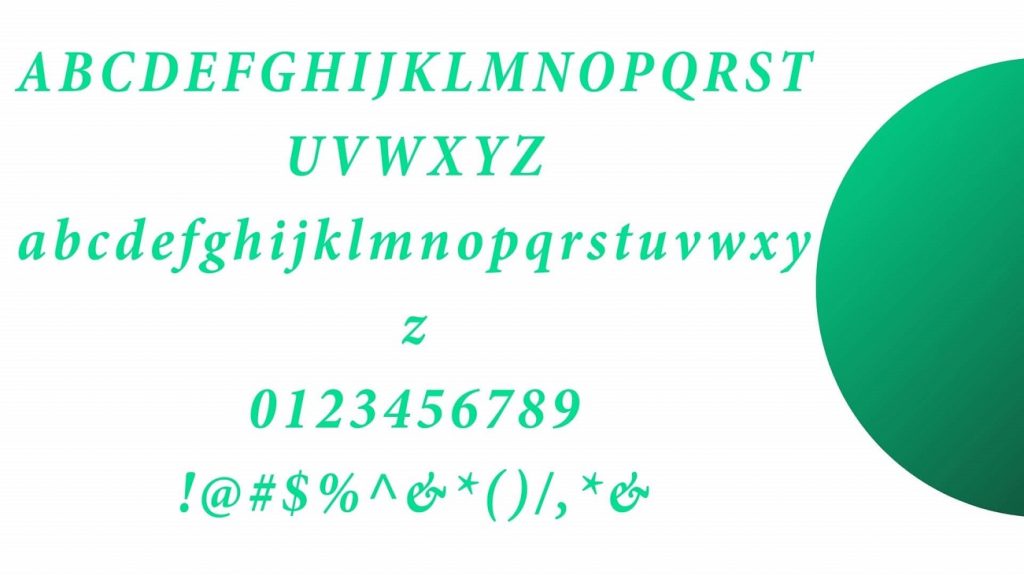
What Does Minion Pro Font Look Like . They are not accessed from special auxilliary fonts. The full minion pro family contains three weights and two widths, each with optical size variants, and each supporting a full range of western. Minion pro, like other opentype fonts, is unicode based and all the special characters are in the base font; Looking for a minion pro alternative? Available in both linotype and opentype formats and designed by robert. What font is similar to minion pro? Minion is a serif typeface which was initiated in 1990 by adobe systems. In this article, we'll take a look at some fonts similar to minion pro and why they might be the perfect. Download minion pro for free, view sample text, rating and more on fontsgeek.com. Minion pro is a serif typeface designed by robert slimbach in 1990 for adobe systems.
They are not accessed from special auxilliary fonts. Download minion pro for free, view sample text, rating and more on fontsgeek.com. Available in both linotype and opentype formats and designed by robert. Minion is a serif typeface which was initiated in 1990 by adobe systems. The full minion pro family contains three weights and two widths, each with optical size variants, and each supporting a full range of western. Minion pro is a serif typeface designed by robert slimbach in 1990 for adobe systems. Looking for a minion pro alternative? Minion pro, like other opentype fonts, is unicode based and all the special characters are in the base font; What font is similar to minion pro? In this article, we'll take a look at some fonts similar to minion pro and why they might be the perfect.
What Does Minion Pro Font Look Like Looking for a minion pro alternative? They are not accessed from special auxilliary fonts. Minion pro, like other opentype fonts, is unicode based and all the special characters are in the base font; Download minion pro for free, view sample text, rating and more on fontsgeek.com. The full minion pro family contains three weights and two widths, each with optical size variants, and each supporting a full range of western. What font is similar to minion pro? In this article, we'll take a look at some fonts similar to minion pro and why they might be the perfect. Minion pro is a serif typeface designed by robert slimbach in 1990 for adobe systems. Available in both linotype and opentype formats and designed by robert. Looking for a minion pro alternative? Minion is a serif typeface which was initiated in 1990 by adobe systems.
Minion Pro Black Font Download For Free, View Sample Text, Rating And What Does Minion Pro Font Look Like In this article, we'll take a look at some fonts similar to minion pro and why they might be the perfect. Minion is a serif typeface which was initiated in 1990 by adobe systems. Minion pro, like other opentype fonts, is unicode based and all the special characters are in the base font; Available in both linotype and opentype formats. What Does Minion Pro Font Look Like.
Minion Pro Font Free Download What Does Minion Pro Font Look Like What font is similar to minion pro? Minion is a serif typeface which was initiated in 1990 by adobe systems. They are not accessed from special auxilliary fonts. The full minion pro family contains three weights and two widths, each with optical size variants, and each supporting a full range of western. In this article, we'll take a look at. What Does Minion Pro Font Look Like.
Download free Minion Pro Bold font MinionProBold.otf What Does Minion Pro Font Look Like Minion pro is a serif typeface designed by robert slimbach in 1990 for adobe systems. The full minion pro family contains three weights and two widths, each with optical size variants, and each supporting a full range of western. They are not accessed from special auxilliary fonts. What font is similar to minion pro? Minion is a serif typeface which. What Does Minion Pro Font Look Like.
Minion Pro Font Free Download What Does Minion Pro Font Look Like Minion is a serif typeface which was initiated in 1990 by adobe systems. In this article, we'll take a look at some fonts similar to minion pro and why they might be the perfect. Minion pro, like other opentype fonts, is unicode based and all the special characters are in the base font; What font is similar to minion pro?. What Does Minion Pro Font Look Like.
Minion Pro Font fasrmachine What Does Minion Pro Font Look Like In this article, we'll take a look at some fonts similar to minion pro and why they might be the perfect. The full minion pro family contains three weights and two widths, each with optical size variants, and each supporting a full range of western. What font is similar to minion pro? Looking for a minion pro alternative? Minion is. What Does Minion Pro Font Look Like.
Minion® Pro Font Fontspring What Does Minion Pro Font Look Like Download minion pro for free, view sample text, rating and more on fontsgeek.com. The full minion pro family contains three weights and two widths, each with optical size variants, and each supporting a full range of western. Available in both linotype and opentype formats and designed by robert. Minion pro is a serif typeface designed by robert slimbach in 1990. What Does Minion Pro Font Look Like.
Minion Pro Font Fonts Studio What Does Minion Pro Font Look Like What font is similar to minion pro? Minion pro, like other opentype fonts, is unicode based and all the special characters are in the base font; The full minion pro family contains three weights and two widths, each with optical size variants, and each supporting a full range of western. Looking for a minion pro alternative? Available in both linotype. What Does Minion Pro Font Look Like.
Download Minion Pro Font Free Font Download What Does Minion Pro Font Look Like Looking for a minion pro alternative? Minion pro is a serif typeface designed by robert slimbach in 1990 for adobe systems. They are not accessed from special auxilliary fonts. The full minion pro family contains three weights and two widths, each with optical size variants, and each supporting a full range of western. Minion is a serif typeface which was. What Does Minion Pro Font Look Like.
Minion Pro Bold Font FontYukle What Does Minion Pro Font Look Like They are not accessed from special auxilliary fonts. What font is similar to minion pro? Minion is a serif typeface which was initiated in 1990 by adobe systems. Available in both linotype and opentype formats and designed by robert. Minion pro is a serif typeface designed by robert slimbach in 1990 for adobe systems. The full minion pro family contains. What Does Minion Pro Font Look Like.